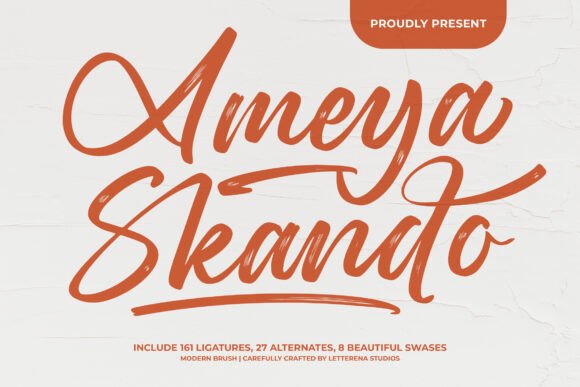
Introducing Ameya Skando Font: The Ultimate Luxury Script Font for Your High-End Projects
In the world of typography, fonts play a crucial role in conveying the tone and personality of a brand or project. When it comes to luxury and high-end projects, the right font can make all the difference. This is where Ameya Skando Font comes in – a modern brush font from Letterena that exudes elegance and sophistication. In this article, we’ll dive into the features and benefits of Ameya Skando Font and explore its various uses in different projects.
What is Ameya Skando Font?
Ameya Skando Font is a luxury script font designed by Letterena, a renowned font foundry. This modern brush font is crafted to add a touch of elegance and sophistication to any project. With its flowing strokes and beautiful letterforms, Ameya Skando Font is perfect for creating stunning luxury-themed designs.
Uses of Ameya Skando Font
Ameya Skando Font is an incredibly versatile font that can be used in a wide range of projects, including:
- Logos: Create a luxurious logo for your brand with Ameya Skando Font.
- Branding projects: Use Ameya Skando Font to add a touch of elegance to your branding materials.
- Homeware designs: Add a luxurious feel to your homeware designs with Ameya Skando Font.
- Product packaging: Make your product packaging stand out with Ameya Skando Font.
- Mugs: Create beautiful mug designs with Ameya Skando Font.
- Quotes: Use Ameya Skando Font to create stunning quote designs.
- Posters: Create eye-catching posters with Ameya Skando Font.
- Shopping bags: Add a touch of luxury to your shopping bag designs with Ameya Skando Font.
- T-shirts: Create stylish t-shirt designs with Ameya Skando Font.
- Book covers: Use Ameya Skando Font to create beautiful book covers.
- Name card: Create elegant name cards with Ameya Skando Font.
- Invitation cards: Make your invitation cards stand out with Ameya Skando Font.
- Greeting cards: Create beautiful greeting cards with Ameya Skando Font.
- Label: Use Ameya Skando Font to create elegant labels.
- Photography: Add a touch of luxury to your photography with Ameya Skando Font.
- Watermark: Create stunning watermarks with Ameya Skando Font.
- Special events: Use Ameya Skando Font to create beautiful designs for special events.
Benefits of Using Ameya Skando Font
Ameya Skando Font offers several benefits that make it an ideal choice for luxury and high-end projects. Some of the benefits include:
- Elegant and sophisticated: Ameya Skando Font exudes elegance and sophistication, making it perfect for luxury-themed projects.
- Versatile: Ameya Skando Font can be used in a wide range of projects, from logos to book covers.
- High-quality: Ameya Skando Font is a high-quality font that is designed to deliver exceptional results.
Design Tips for Using Ameya Skando Font
Here are some design tips to help you get the most out of Ameya Skando Font:
- Use it as a headline font: Ameya Skando Font is perfect for use as a headline font, adding a touch of elegance and sophistication to your designs.
- Pair it with a sans-serif font: Pair Ameya Skando Font with a sans-serif font to create a beautiful contrast.
- Experiment with colors: Ameya Skando Font looks great in a variety of colors, so don’t be afraid to experiment.
- Use it sparingly: Use Ameya Skando Font sparingly to create a sense of luxury and exclusivity.
In conclusion, Ameya Skando Font is a luxury script font that is perfect for high-end projects. With its elegant and sophisticated design, Ameya Skando Font is sure to add a touch of luxury to any project. Whether you’re designing a logo, branding materials, or product packaging, Ameya Skando Font is an excellent choice.